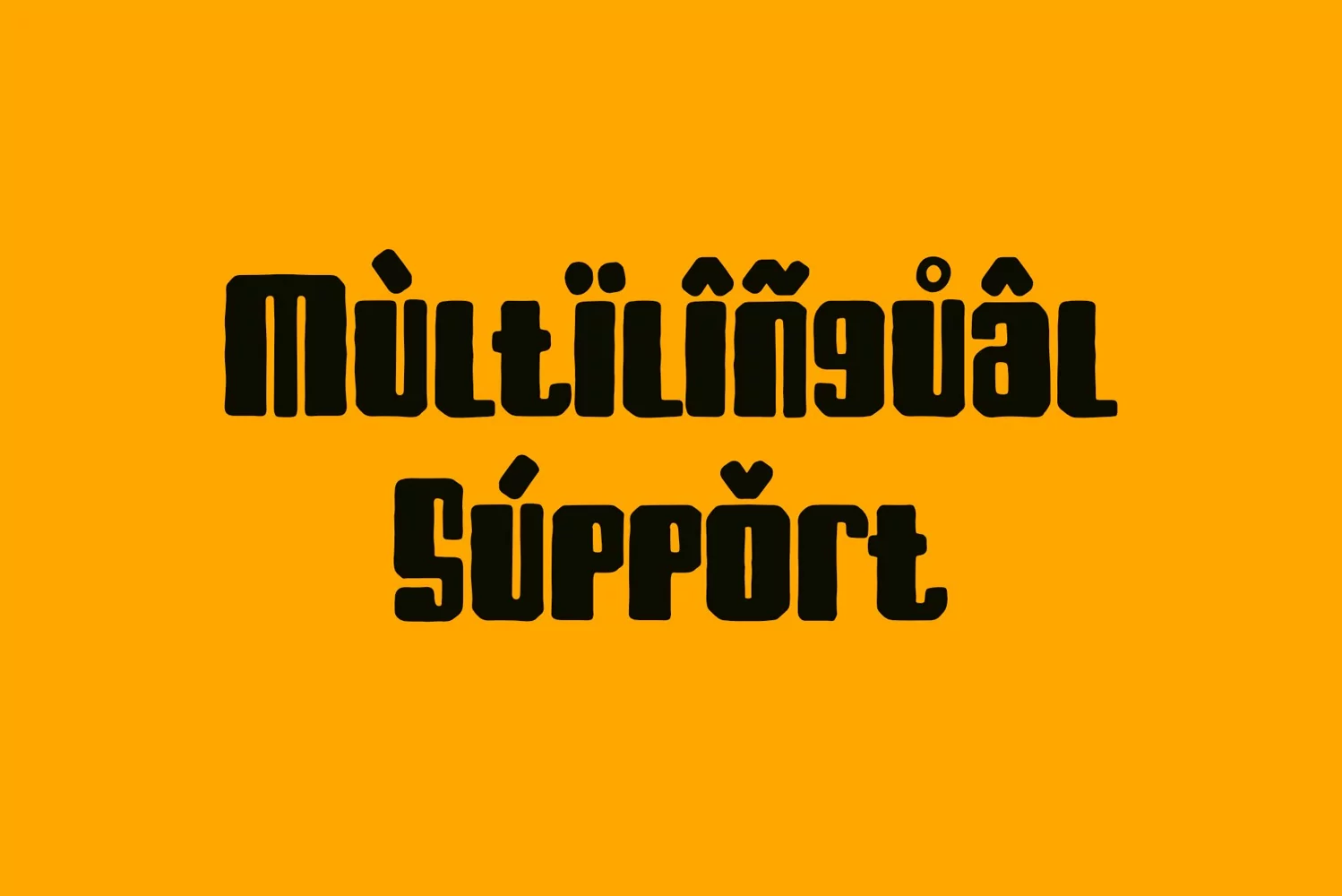
Bark for life
*Bark for life Font*
This pair was inspired by the retro poster design that i saw on some coffee shop, It was crafted by hand specially to add natural handmade feeling in its brand identity than i make it clean with pentool.
Bark for life font has 194 character set included
Bark for life Font is very good looking in logo, labels, t-shirt prints, product packaging, invitations, advertising and others.